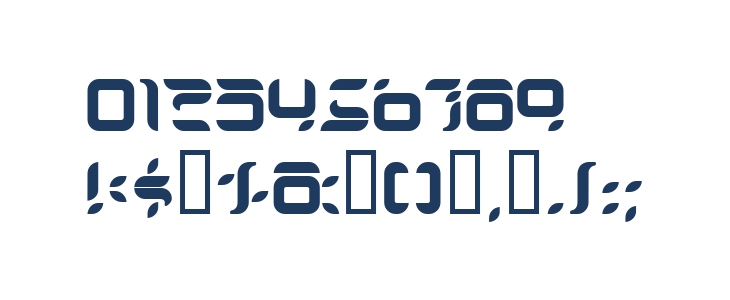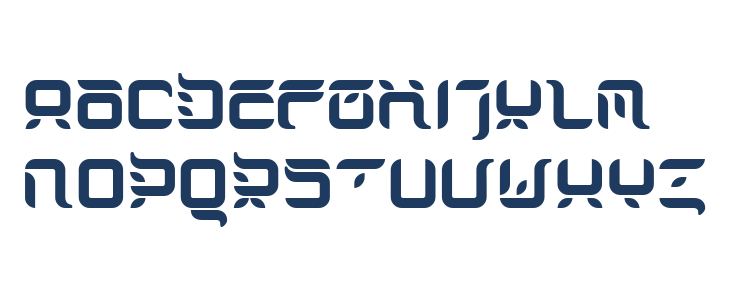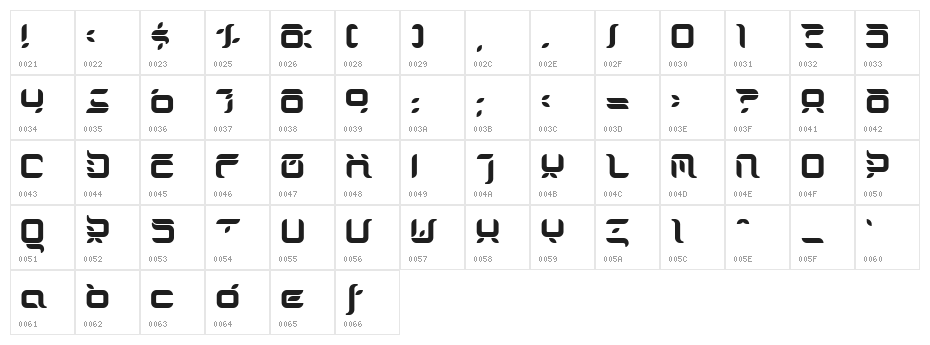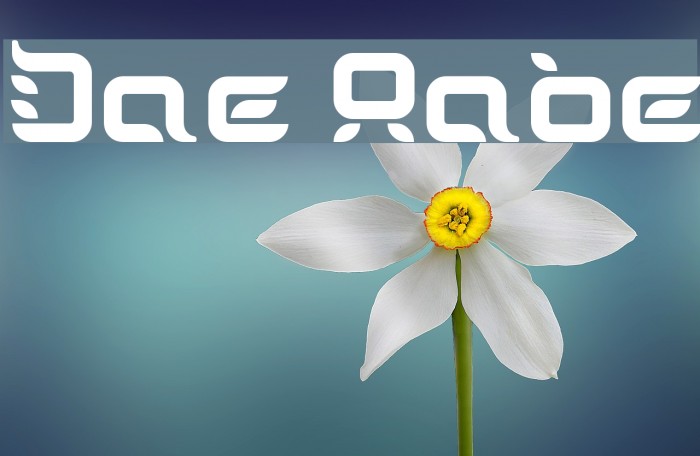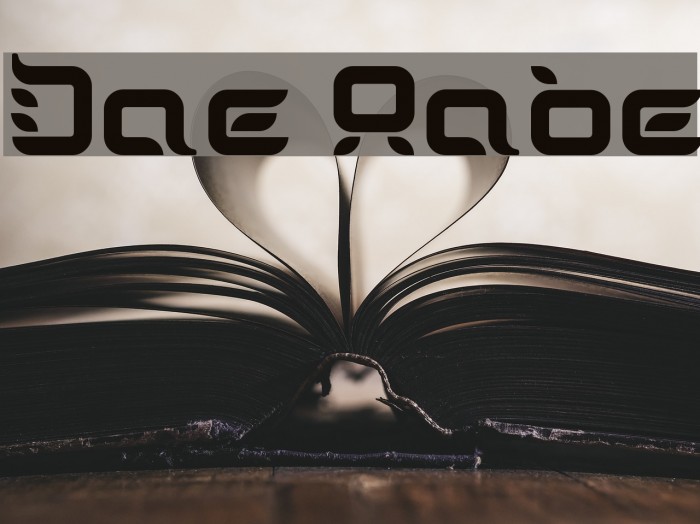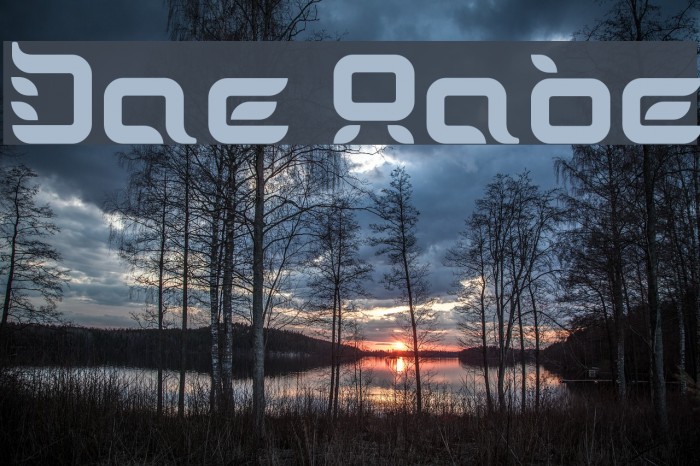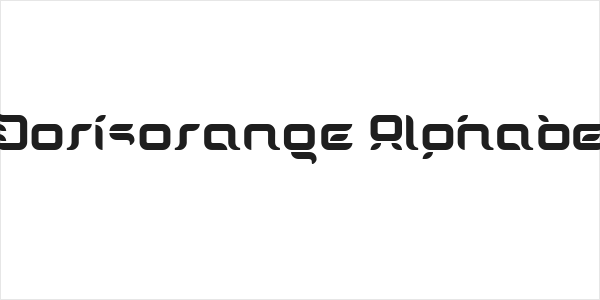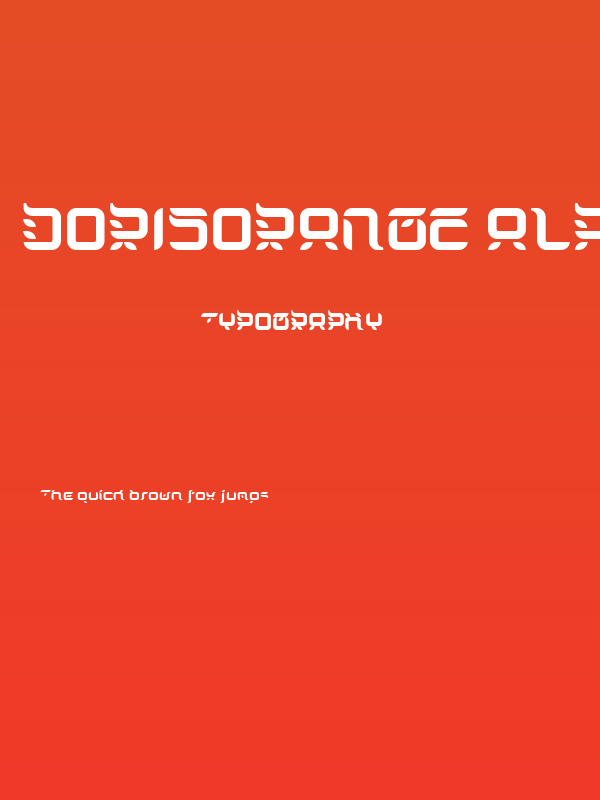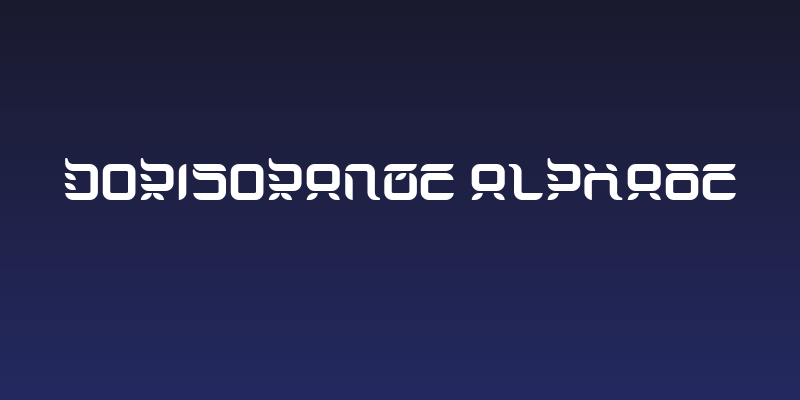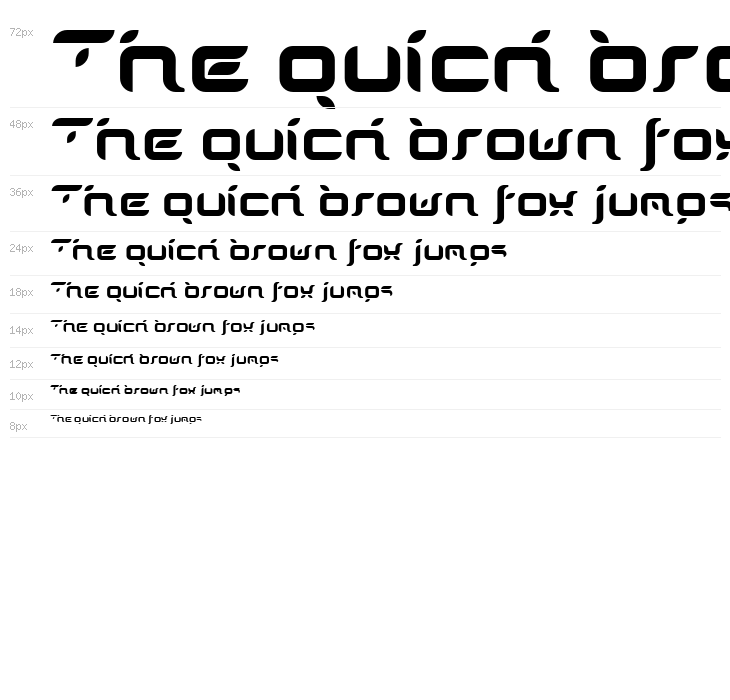
Dorisorange Alphabe Font
Dorisorange Alphabe Description
This font features a futuristic and geometric design with a unique blend of sharp angles and rounded edges. The characters are constructed with a consistent thickness, giving them a bold and solid appearance. The design incorporates cut-out sections and negative spaces, creating a sense of movement and dynamism. This font is highly stylized, making it suitable for creative and modern applications. The uniformity in stroke width across all characters contributes to its cohesive and structured look.
Overall StyleFuturistic
Proposed ProjectsIdeal for sci-fi themed projects, modern branding, technology logos, and innovative product packaging.